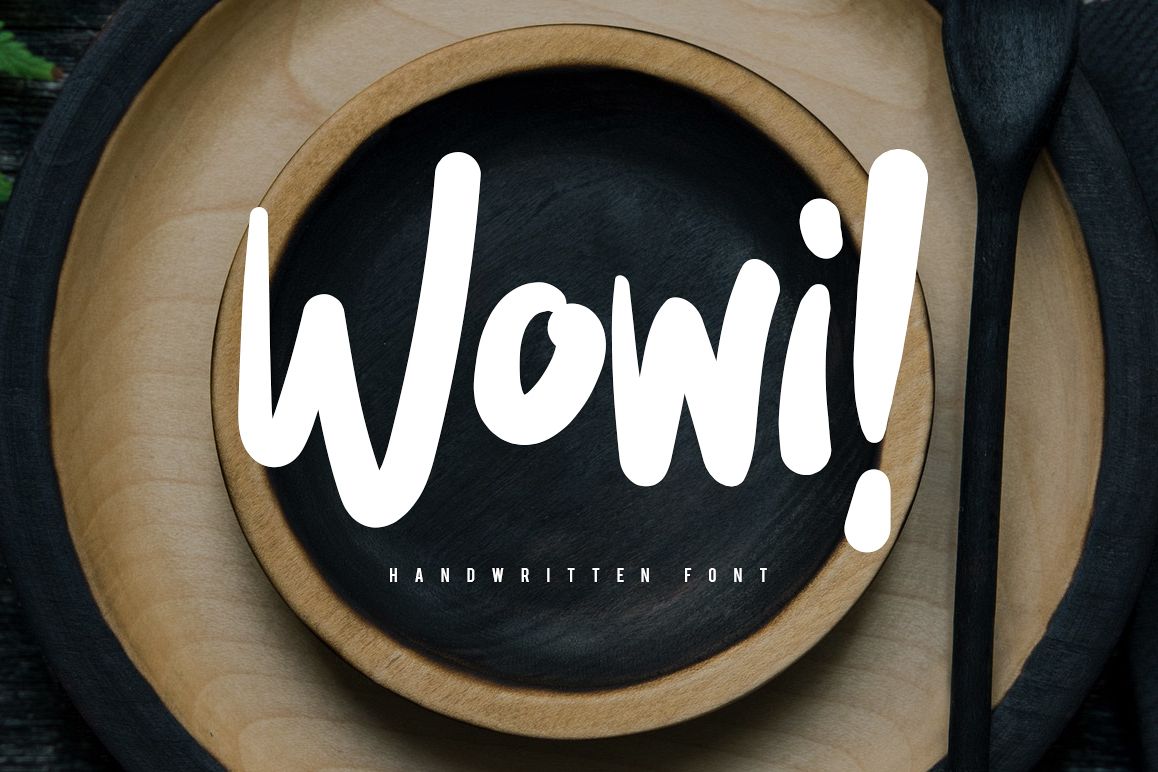
Give your designs an authentic handcrafted feel. "Wowi Typeface" is perfectly suited to signature, stationery, logo, typography quotes, magazine or book cover, website header, clothing, branding, packaging design and more.